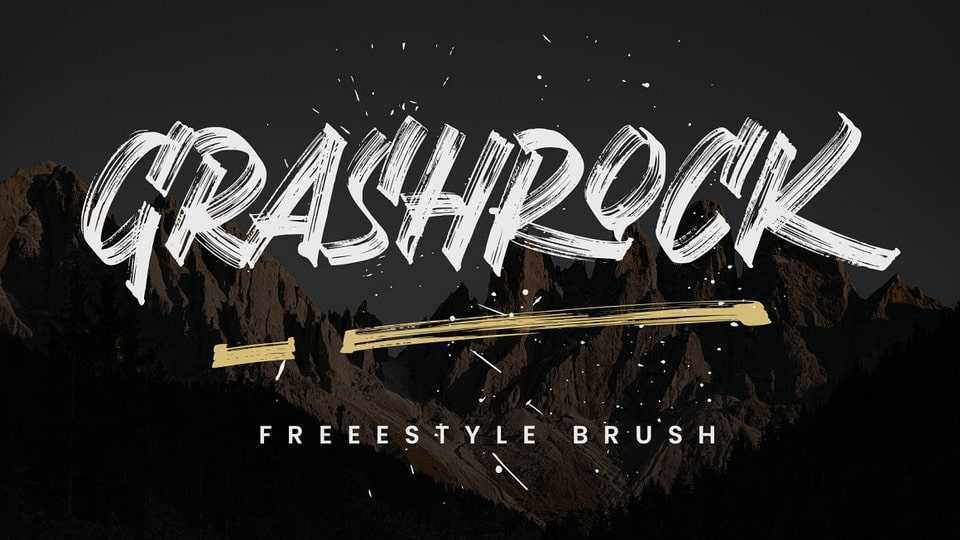
Download Grashrock font, a fast typeface, with an aggressive motion of the brush strokes. Designed with high attention to detail of the brush, Grashrock inspires you to create a dynamic design.